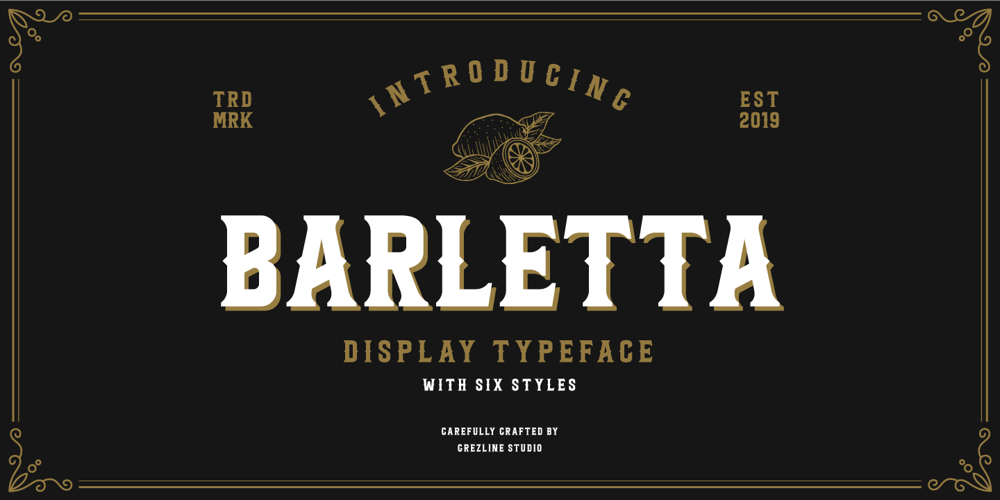
Barletta Font Family was designed by Akhmad Reza Fauzi and published by Grezline Studio. Barletta contains 5 styles and family package options. Barletta is a unique and bold serif font with a vintage charm. Get inspired by its timeless class. You can use Barletta font to make a vintage logo for branding, typography design, magazine or book cover, website header, product packaging, t-shirt design, label poster and many more.Feature :- Multilingual Language – Works on PC & Mac- Simple installations- Accessible in the Adobe Illustrator, Adobe Photoshop, Adobe InDesign, even works on Microsoft Word.